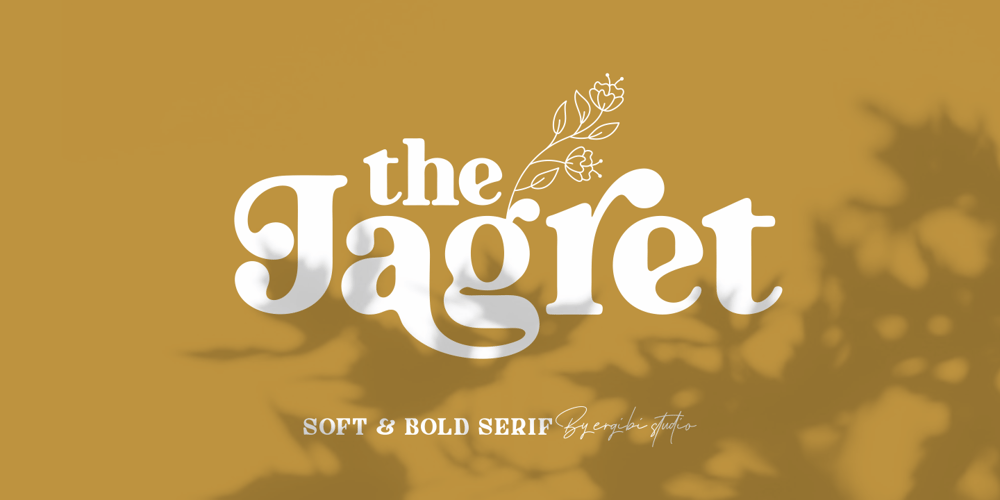
The Jagret
The Jagret font
The Jagret Font Family was designed by Riyadh Rahman and published by Ergibi Studio. The Jagret contains 2 styles and family package options. Jagret is a Soft and Bold serif, The many alternate character on serif makes this typeface unique and stands out rather than the regular sans font, perfectly for headlines, logos, posters, packaging, T-shirts,coffee shops, restaurants, magazine’s headers, signs or gift/post cards,cafe’s and weddings or any type of advertising purpose.With italic version that you can use as a complimentary!Features Regular & Italic Version Uppercase & Lowercase Number & Symbol Ligatures Multilingual and PUA Encoded If there is a problem, question, or anything about my fonts, don’t hesitate to ask!Big Thanks Ergibi Studio